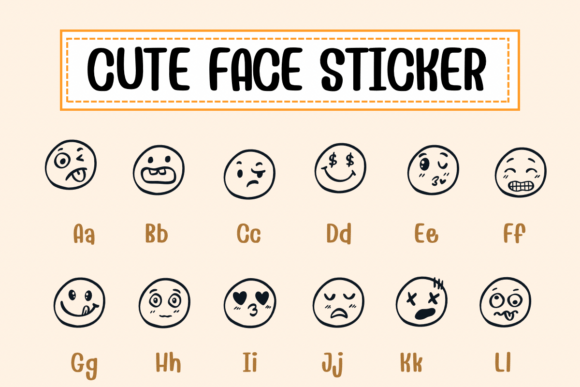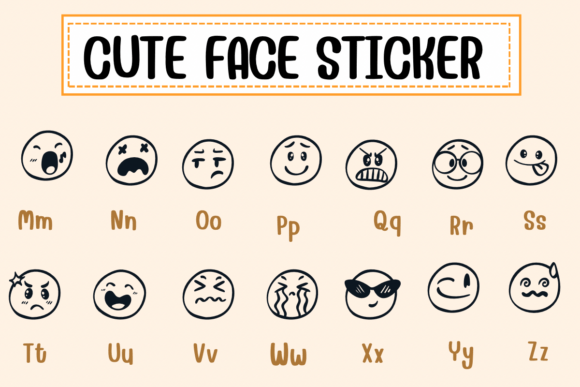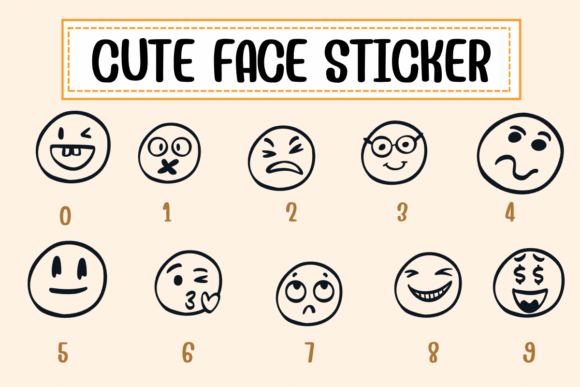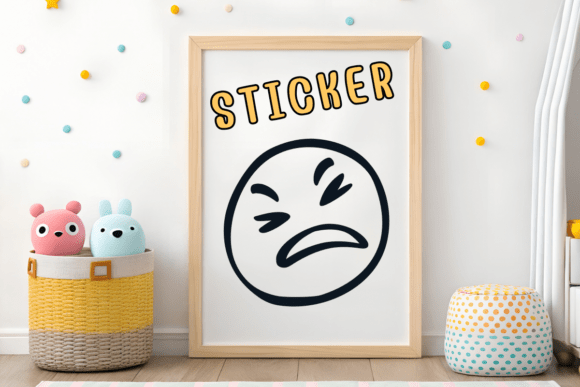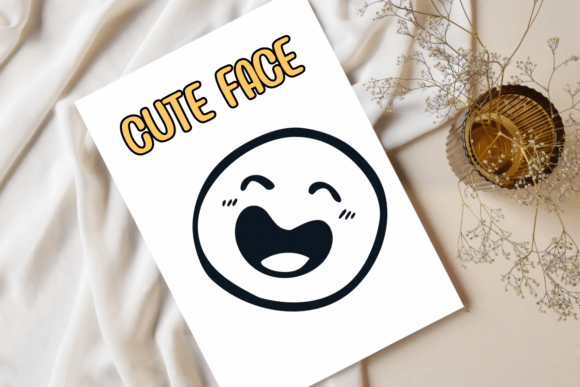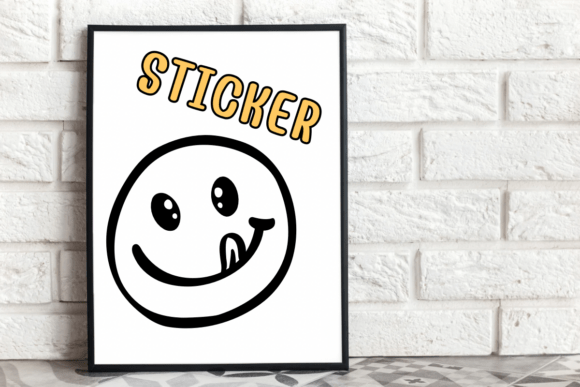
Cute Face Sticker Font: Add a Touch of Whimsy to Your Creative Projects
Are you looking for a unique and playful way to add some personality to your creative projects? Look no further than the Cute Face Sticker Font, a delightful dingbats font that features a charming sketch style theme. This versatile font is perfect for designers and crafters who want to add a touch of whimsy to their work, and it’s ideal for a wide range of projects, from wedding invitations and DIY crafts to decorations, logos, and more.
What is the Cute Face Sticker Font?
The Cute Face Sticker Font is a dingbats font, which means it’s a type of font that features images or symbols rather than traditional letters and numbers. This font is specifically designed to resemble stickers, with a cute and playful sketch style that’s sure to charm. The font includes a wide range of images, including faces, animals, objects, and more, making it perfect for adding a personal touch to your creative projects.
How Can I Use the Cute Face Sticker Font?
The Cute Face Sticker Font is incredibly versatile, and it can be used for a wide range of creative projects. Here are just a few ideas to get you started:
- Wedding Invitations: Add a touch of whimsy to your wedding invitations with the Cute Face Sticker Font. You can use the font to create custom illustrations, borders, and other design elements that will make your invitations stand out.
- DIY Crafts: The Cute Face Sticker Font is perfect for DIY crafts, such as scrapbooking, card making, and other paper crafts. You can use the font to add custom illustrations and decorations to your projects.
- Decorations: Use the Cute Face Sticker Font to create custom decorations for your home or office. You can use the font to create wall art, garlands, and other decorative elements that will add a touch of personality to your space.
- Logos: The Cute Face Sticker Font can also be used to create custom logos for your business or brand. The font’s playful and whimsical style makes it perfect for businesses that want to stand out and showcase their personality.
Why Should I Use the Cute Face Sticker Font?
There are many reasons why you should consider using the Cute Face Sticker Font in your creative projects. Here are just a few:
- Unique and Playful: The Cute Face Sticker Font is a unique and playful way to add some personality to your creative projects. The font’s sketch style theme is sure to charm, and it’s a great way to stand out from the crowd.
- Versatile: The Cute Face Sticker Font is incredibly versatile, and it can be used for a wide range of creative projects. Whether you’re working on a wedding invitation or a DIY craft, this font is sure to be a great choice.
Tips and Tricks for Using the Cute Face Sticker Font
Here are a few tips and tricks to keep in mind when using the Cute Face Sticker Font:
- Experiment with Different Sizes: The Cute Face Sticker Font looks great in a variety of sizes, so don’t be afraid to experiment. Try using the font in different sizes to add visual interest to your designs.
- Combine with Other Fonts: The Cute Face Sticker Font can be combined with other fonts to create a unique and interesting look. Try pairing the font with a script font or a bold sans serif font to add contrast.
- Use for Colorful Designs: The Cute Face Sticker Font is perfect for colorful designs, so don’t be afraid to add some bright and bold colors to your projects.
In conclusion, the Cute Face Sticker Font is a unique and playful way to add some personality to your creative projects. With its charming sketch style theme and versatile design, this font is perfect for designers and crafters who want to stand out from the crowd. Whether you’re working on a wedding invitation, DIY craft, or logo, the Cute Face Sticker Font is sure to be a great choice.